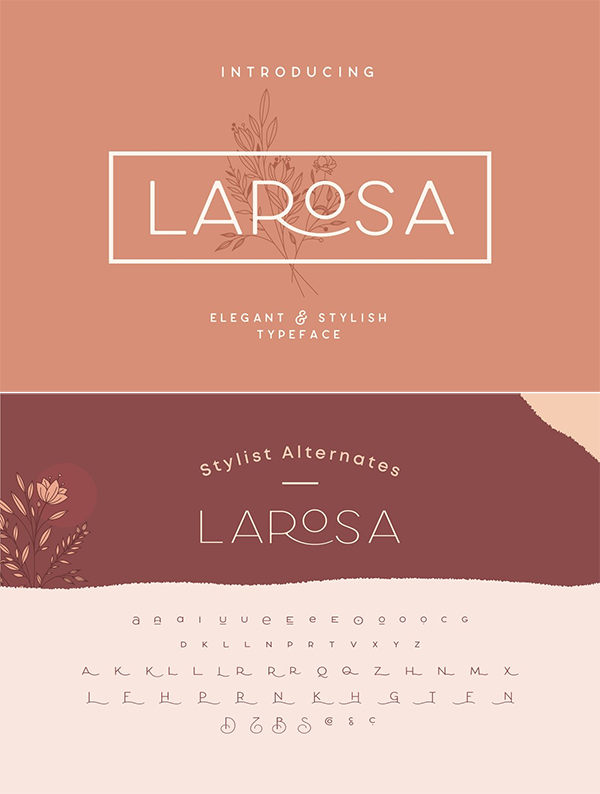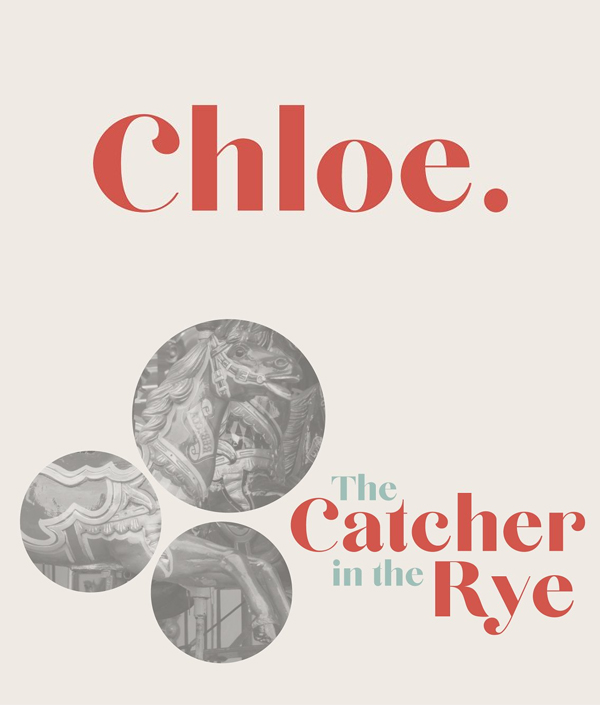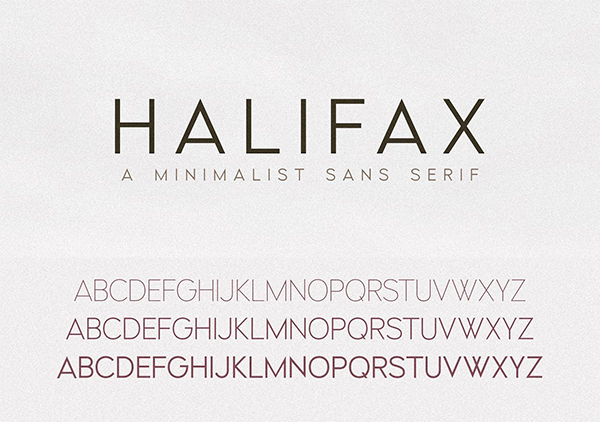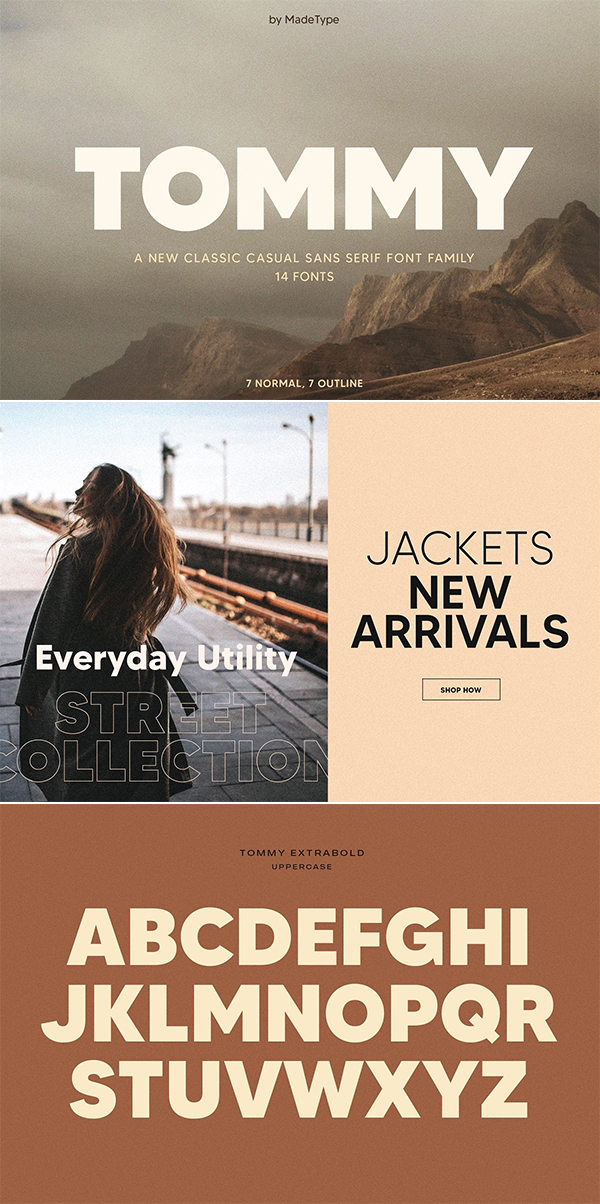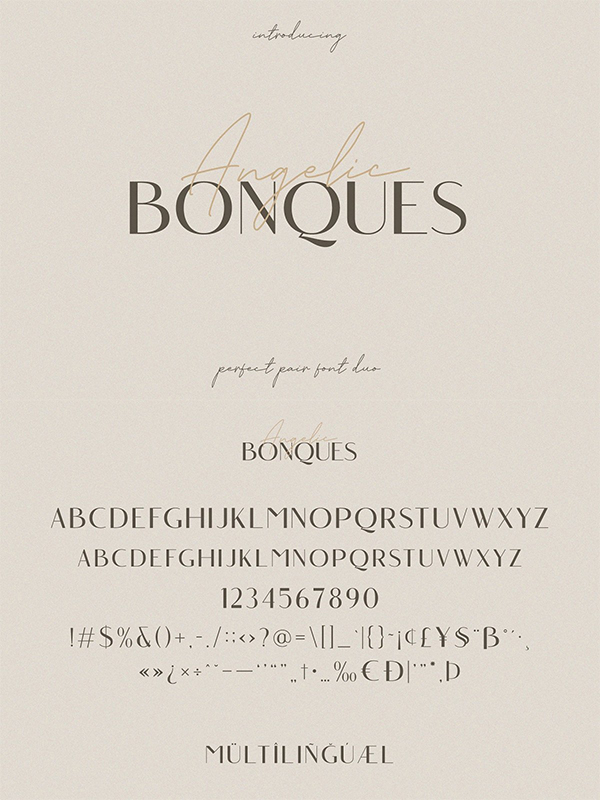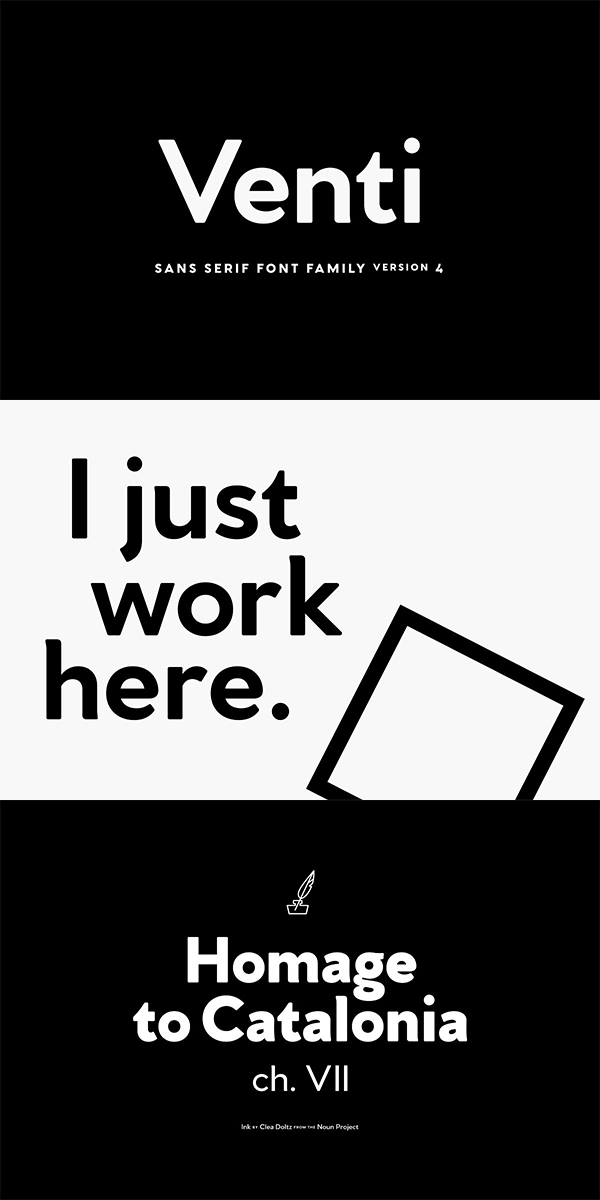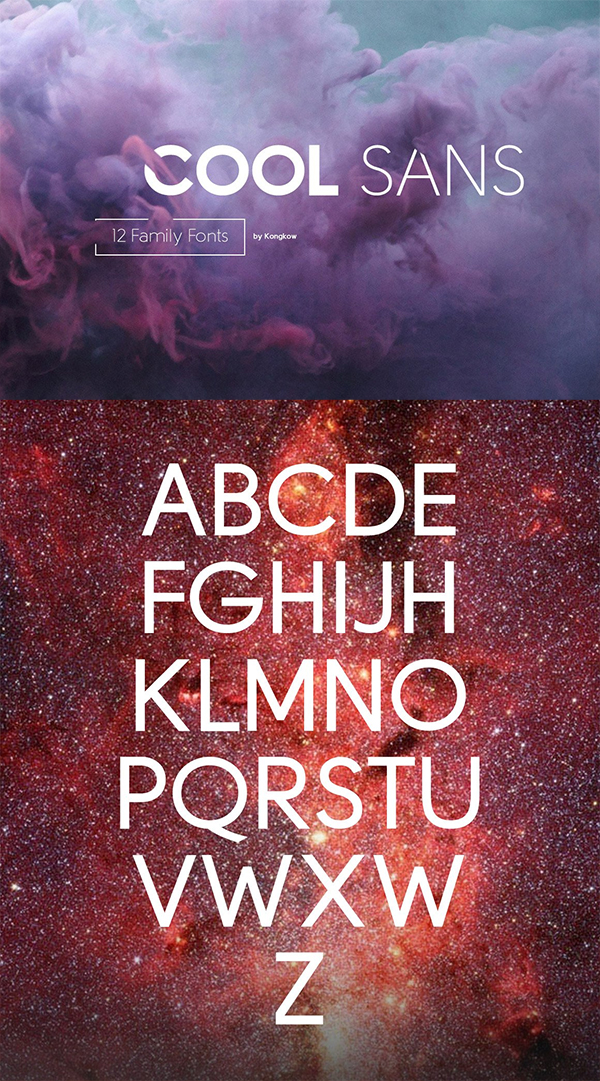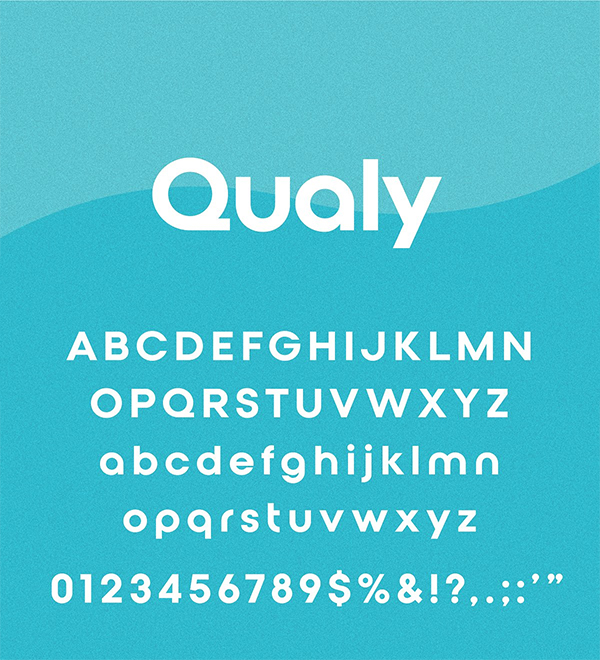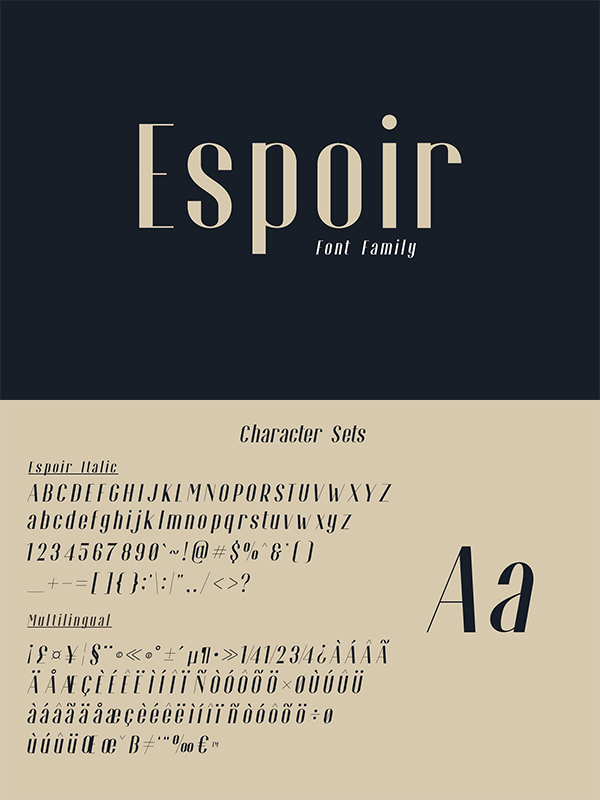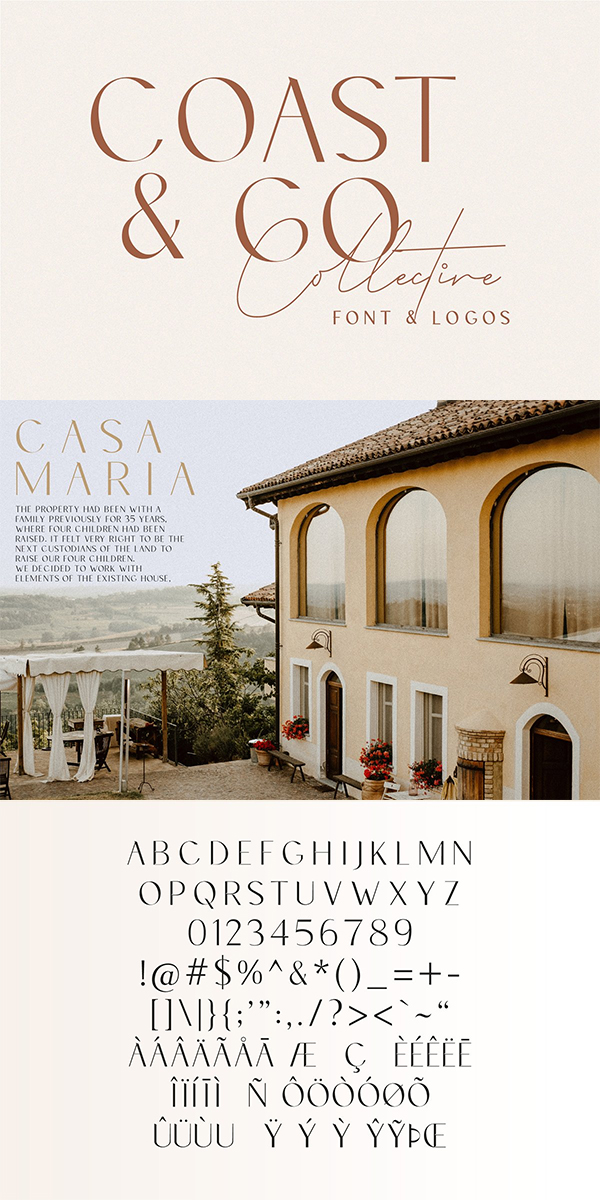
50 Best Sans-Serif Fonts For Graphic Designers
Due to living in a digital age, we seldom see handwritten or casual script on websites. However, that is gradually changing. The sans-serif fonts are very useful font style and typeface that is now being used in numerous design projects. This typeface is greatly used in casual script, despite not being used in wide logos. Thanks to its nostalgic look, this style of font has been used in a lot of web designs. Furthermore, this type of font is appealing due to its modern style. In order to find the ideal font for you that also adds a nostalgic factor; the best sans-serif fonts of 2020 are available online for your use.
Best sans-serif fonts for professional design project. The modern sans-serif fonts are simple looking fonts perfect for branding, logos, greeting cards, typographic quotes, book covers, websites, flyers, packaging designs and more.
50 Best Sans-Serif Fonts
Here is the list of 50 Best Sans-Serif Fonts Of 2020
Larosa Sans Elegant Typeface
Introducing Larose Sans – An elegant modern sans serif with ton of stylistic alternates to choose. Its clean and minimalistic works wonderfully on its own for logos, headlines, posters, packaging and many more! And with Three different weights to choose, your option to create more unique and versatile design is a lot wider. Have fun and create more.
Chloe – A Classic Typeface
Create bold, gorgeous headlines and elegant designs with a vintage flair. Chloe’s contrasting lines and curved terminals give a sleek, elegant look to logos, holiday cards, wedding invitations, quotes, advertisements, and more. Chloe is a versatile typeface that’s full of character and one you’ll come back to time and again. Create something beautiful today with Chloe.
Halifax | A Modern Minimalist Sans
Made Tommy Font
MADE TOMMY will perfect for many project: fashion, magazines, logo, branding, photography, invitations, wedding invitation, quotes, blog header, poster, advertisements, postcard, book, websites, etc.
Angelic Bonques – Font
Angelic Bonques – Perfect Pair Font Duo is a combination of an elegant sans serif font & beauty handwritten script font based on the expression of real handwriting. Angelic Bonques – Perfect Pair Font Duo will work perfectly for fashion, e-commerce brands, trend blogs, wedding boutiques or any business that wants to appear upscale and chic.
Venti CF Sans Serif Font
Venti is a geometric font family with a warm, engaging character. Inviting and versatile, Venti’s subtle imperfections and human tone make it great for headlines, quotes and short text. The new version 4 update brings a host of refinements and improvements to a classic typeface.
Cool Sans Family Font
Cool sans – is a creative font that is very versatile, we provide 12 family fonts are very handsome, very suitable for minimalist concept, fashion, promotional, because it has the letters were clean.
Qualy – Logo Font
Espoir Font Family
Introducing Espoir font family is an Elegant and Fancy Font. This font was inspired by the engraving fonts of the late 19th century. Espoir is based on the compact solid font, by combining a variety of styles. Espoir font family offers an attractive tool for producing elegant decorative lettering, for example, for book covers or for posters and packaging.
Coast & Co Font
A modern Serif Font with extra logos thrown in! Coast is a unique typeface blending those old Spanish villa vibes with modern minimalist design. It’s unique cut ins &curves make it a memorable font for stylish logos, mastheads and pull quotes. It comes with 4 Logos in .Ai or .EPS files that match the font perfectly. It pairs nicely with all script fonts like “Queenstown Signature Font ” seen above.
Geometric Sans Font
Rugged, hearty, and warm, Greycliff is a versatile font family. Strong capitals and a smooth, open lowercase are effective in a variety of applications. The geometric, near-monoline construction lends a classic durability, tempered by softened edges and vibrant shapes.
Cocogoose Classic Font
Created as a display typeface in 2012 by Cosimo Lorenzo Pancini, Cocogoose is one of Zetafonts most loved typefaces. A sans serif typeface of geometric proportions, with very low contrast and slightly rounded corners, it was the first typeface to be produced in the Coco series, an ongoing research on the design variation in gothic typefaces through the ages. Cocogoose extreme x-height and ultrabold weight (with regular being comparable to heavy weights of other typefaces), have since then made it very popular for effective display and logo use, also thanks to decorative versions like Cocogoose Letterpress.